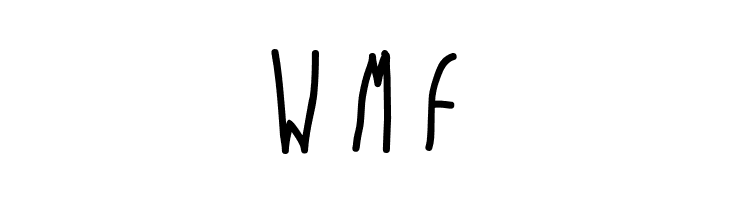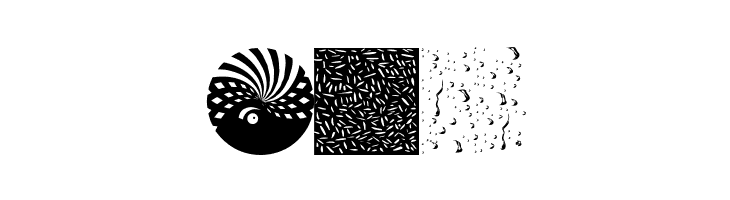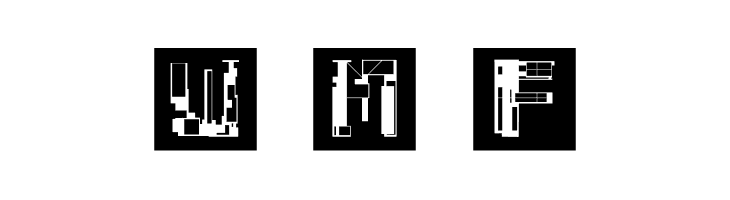
• HartzVier
A dynamic, cursive script font with elegant flourishes and a handwritten feel.
• PrestoWritten
A playful, handwritten font with tall, narrow letters and uneven strokes.
• RockFontsOne
A decorative symbol and illustration set with bold, eclectic designs.
• NewNeighbours
Whimsical, illustrative font made of cartoon and surrealist scenes.
• SuprematismK
A bold, geometric font with a digital, abstract aesthetic and fragmented design.
• ArteAfrique
A decorative font inspired by African art, featuring bold and intricate symbols.
• JulySketches
The image contains cartoon faces, not a font.
• Burklein-Oblique
An elegant oblique serif font with a dynamic and sophisticated style.
• LatinSmall
A classic serif font with high contrast and elegant, narrow characters.
• AugenEyes
A display font composed of assorted illustrated eye motifs.